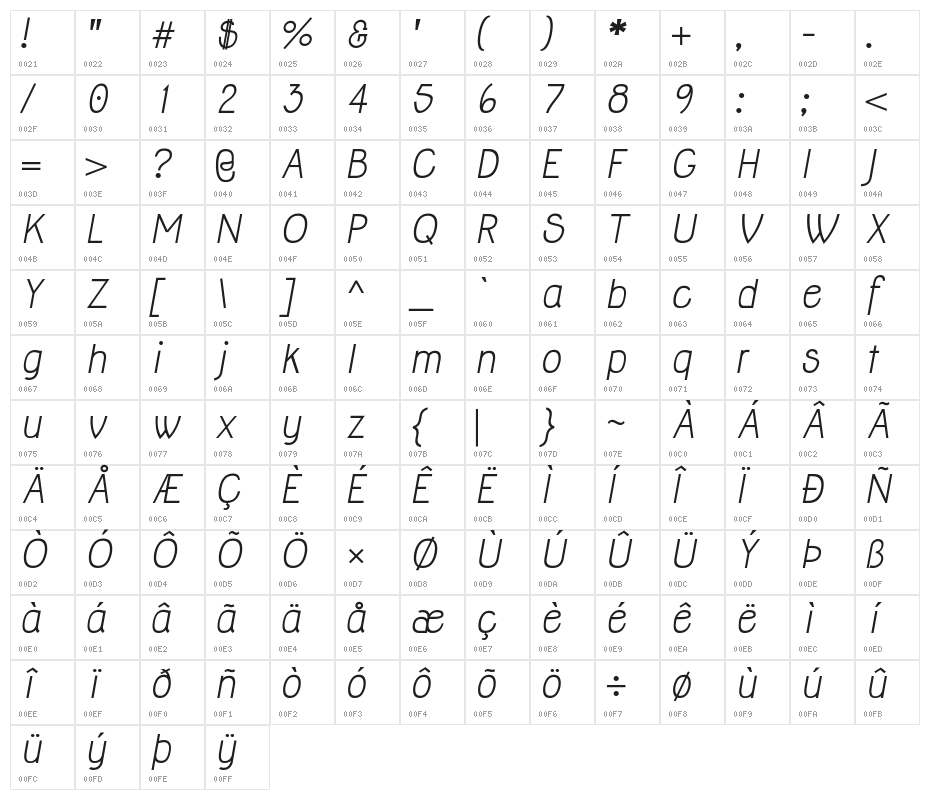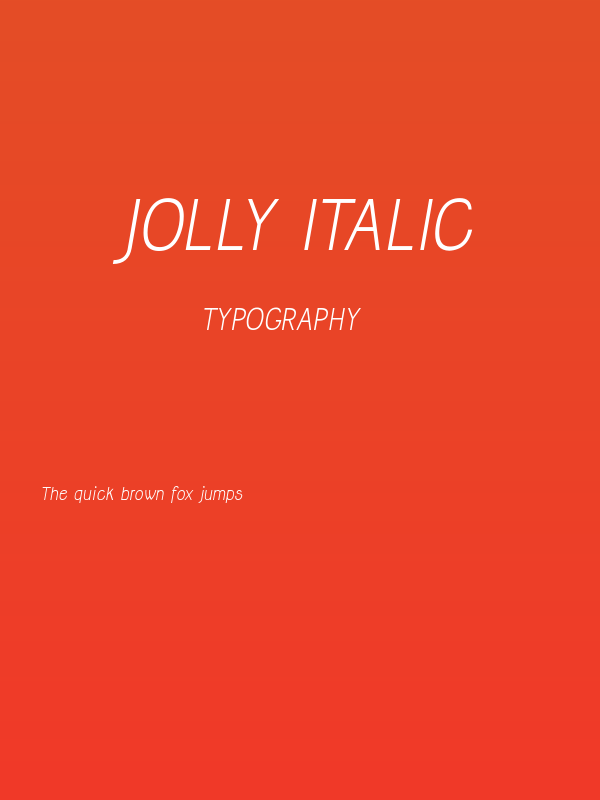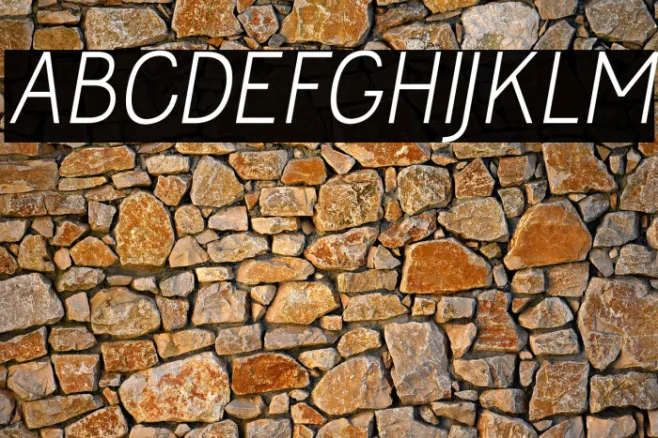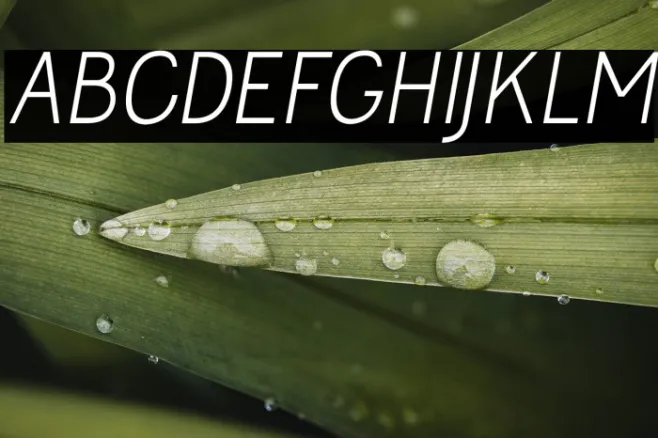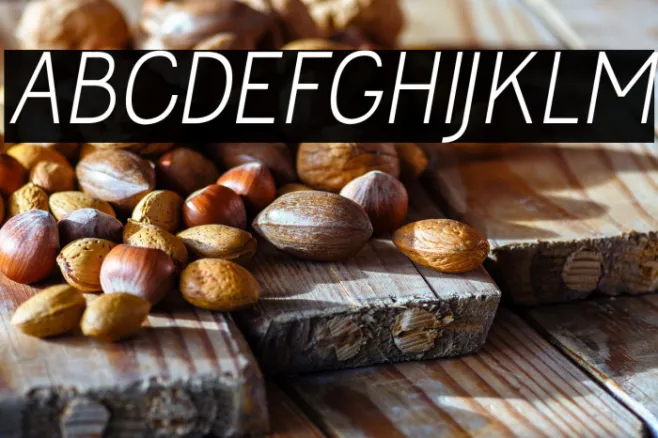
Jolly Italic Font
Jolly Italic Description
This font features a sleek and modern italic style, characterized by its smooth and slightly slanted letterforms. The uppercase and lowercase letters maintain a consistent flow, with rounded edges that add a touch of elegance. The numerals are clear and easy to read, complementing the overall design. Special characters are well-integrated, maintaining the font's cohesive appearance. The font's design is versatile, making it suitable for various applications where a contemporary and stylish look is desired. Its clean lines and subtle curves give it a professional yet approachable feel.
| Proposed Projects | Ideal for branding, advertising, and editorial design projects that require a modern and stylish appearance. |